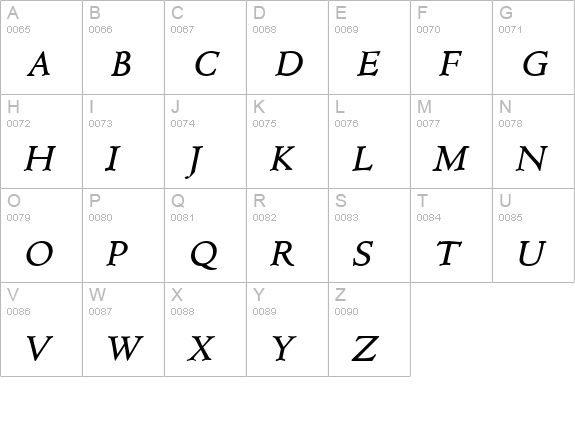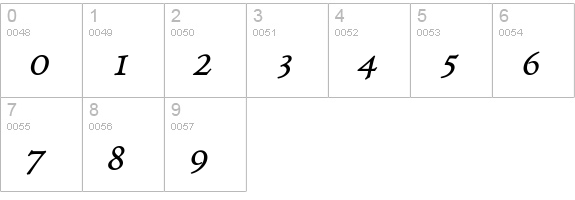
Viviene BoldItalic Font Details
Introducing Viviene BoldItalic, a stunning and elegant font that exudes sophistication and style. With its unique blend of boldness and italic grace, this typeface is perfect for adding a touch of flair to any design project. Viviene BoldItalic captures attention effortlessly, commanding the viewer's gaze with its confident and distinctive letterforms. Each character is meticulously crafted, showcasing a perfect balance between strong lines and delicate curves. The bold strokes create a sense of power and authority, while the italic slant adds a touch of elegance and movement. This font is not only visually captivating but also highly versatile. It is perfect for a wide range of design applications, including logo designs, branding materials, invitations, headlines, and much more. Whether you want to make a bold statement or add a touch of sophistication, Viviene BoldItalic is sure to elevate your designs to the next level. And the best part? Viviene BoldItalic is available for free! You can easily download this font at FontsMarket.com, a trusted source for high-quality fonts. This means that you can enjoy the beauty and versatility of Viviene BoldItalic without any cost or hassle. It is a rare opportunity to access a premium font at no charge, making it a must-have for both professional designers and enthusiasts alike. So why wait? Elevate your designs with the captivating beauty of Viviene BoldItalic. Download this font today at FontsMarket.com and let your creativity soar. With its boldness, elegance, and the fact that it is freely available, Viviene BoldItalic is truly a font that stands out from the crowd.